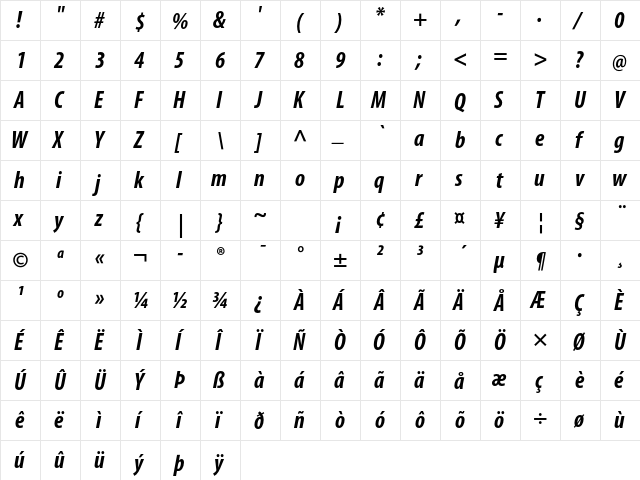
Myriad Pro Bold Condensed Italic Font Preview
| Designer | Robert Slimbach and Carol Twombly |
Design Context for Myriad Pro Typeface
Myriad Pro offers clean, dependable letterforms without strong stylistic allegiance, making it a practical choice for designers who need flexibility. The dynamic lean of this cut emphasises speed and emphasis in any layout. The heavy weight commands attention and anchors typographic hierarchies. The condensed width makes it efficient for tight spaces without sacrificing legibility.
Pro Tip: Try Myriad Pro for annotation and caption copy alongside an upright companion — the contrast in angle creates a dynamic but ordered typographic system.